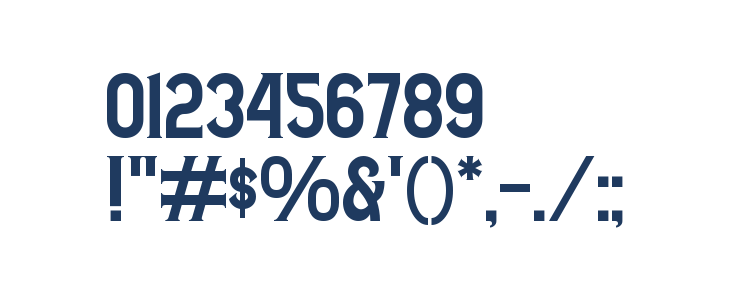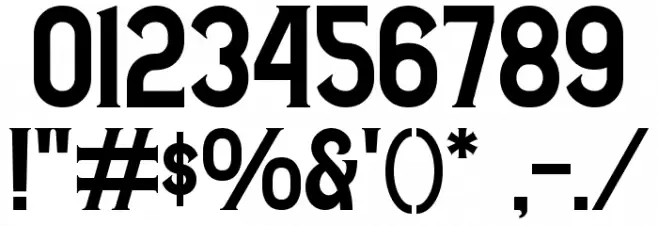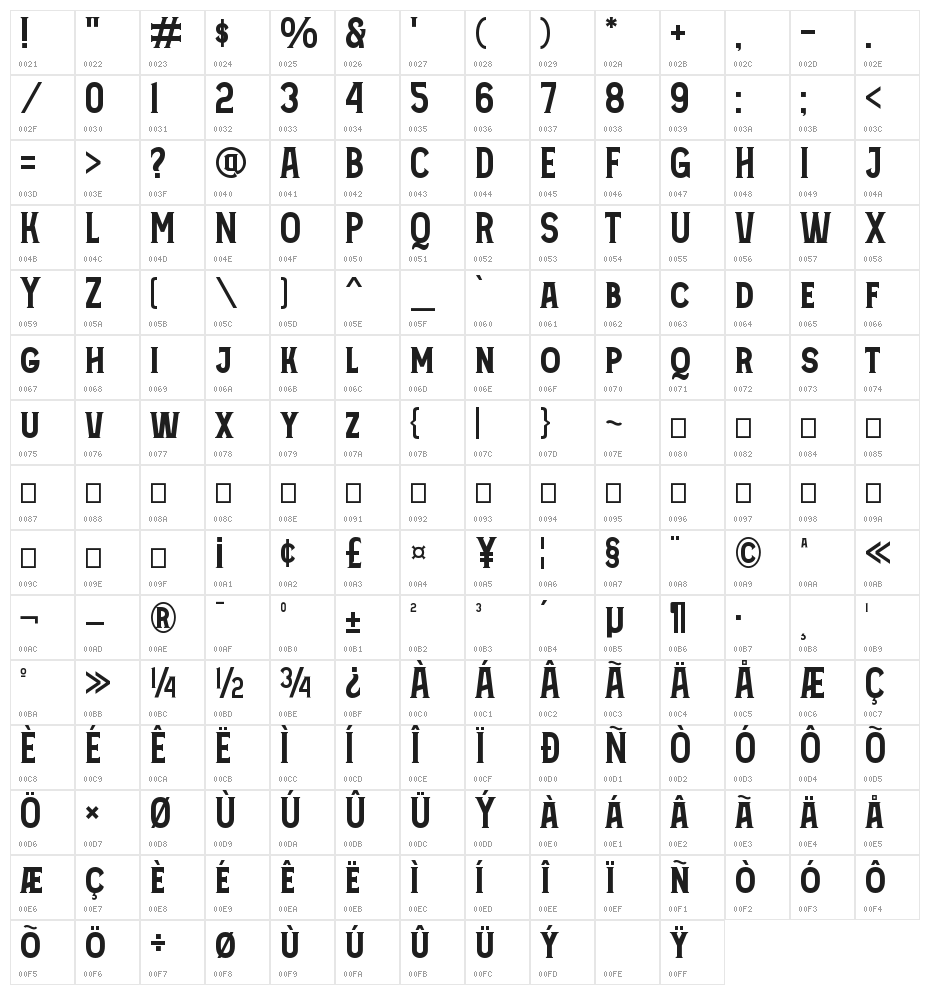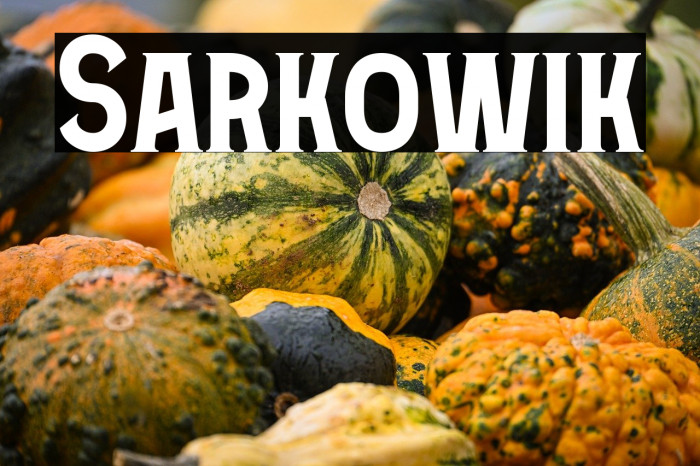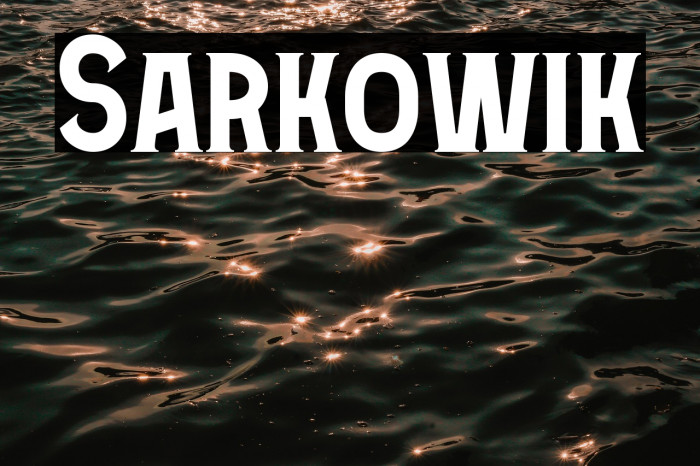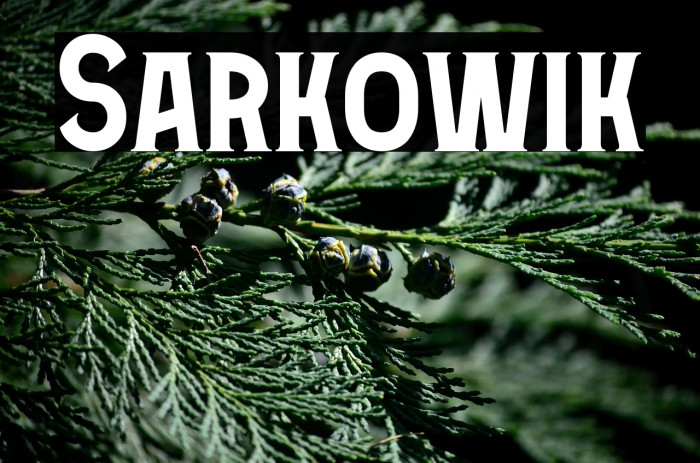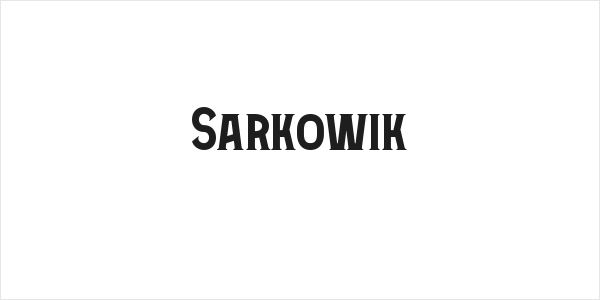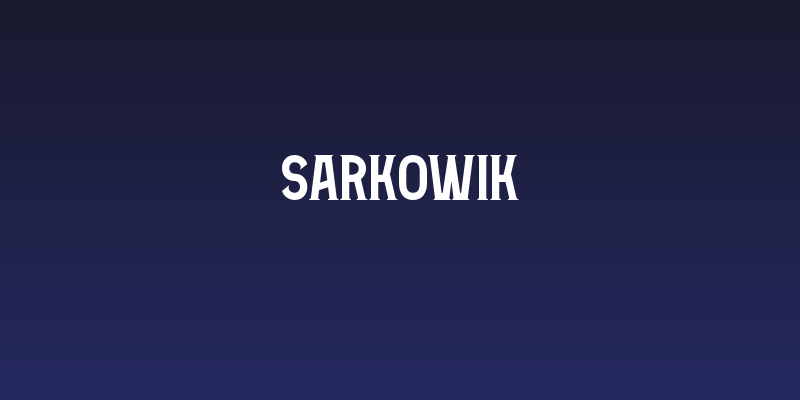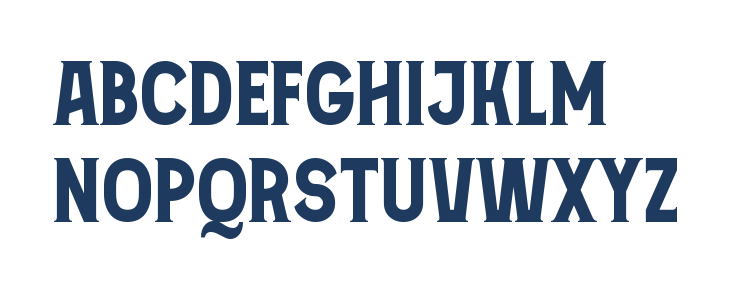
Sarkowik Font
Sarkowik Description
This font features bold, uppercase and lowercase letters with a strong presence and a slightly condensed appearance. The characters have a distinct, angular design with sharp edges and a uniform stroke width, giving them a modern and assertive look. The numerals are equally bold, maintaining the same design ethos as the letters. Special characters are included, matching the overall style with a consistent weight and form. The font's design is clean and impactful, making it suitable for projects that require a strong visual statement.
Proposed ProjectsIdeal for branding, headlines, posters, and any design requiring a bold statement.